Typography is one of the most powerful tools in modern web design. The right font can capture attention, improve readability, and strengthen your brand identity. With so many typefaces available today, choosing the best fonts for modern website design can feel overwhelming. This guide will walk you through everything you need to know about selecting the perfect font for your site, along with curated recommendations.
1. Why Fonts Matter in Modern Website Design
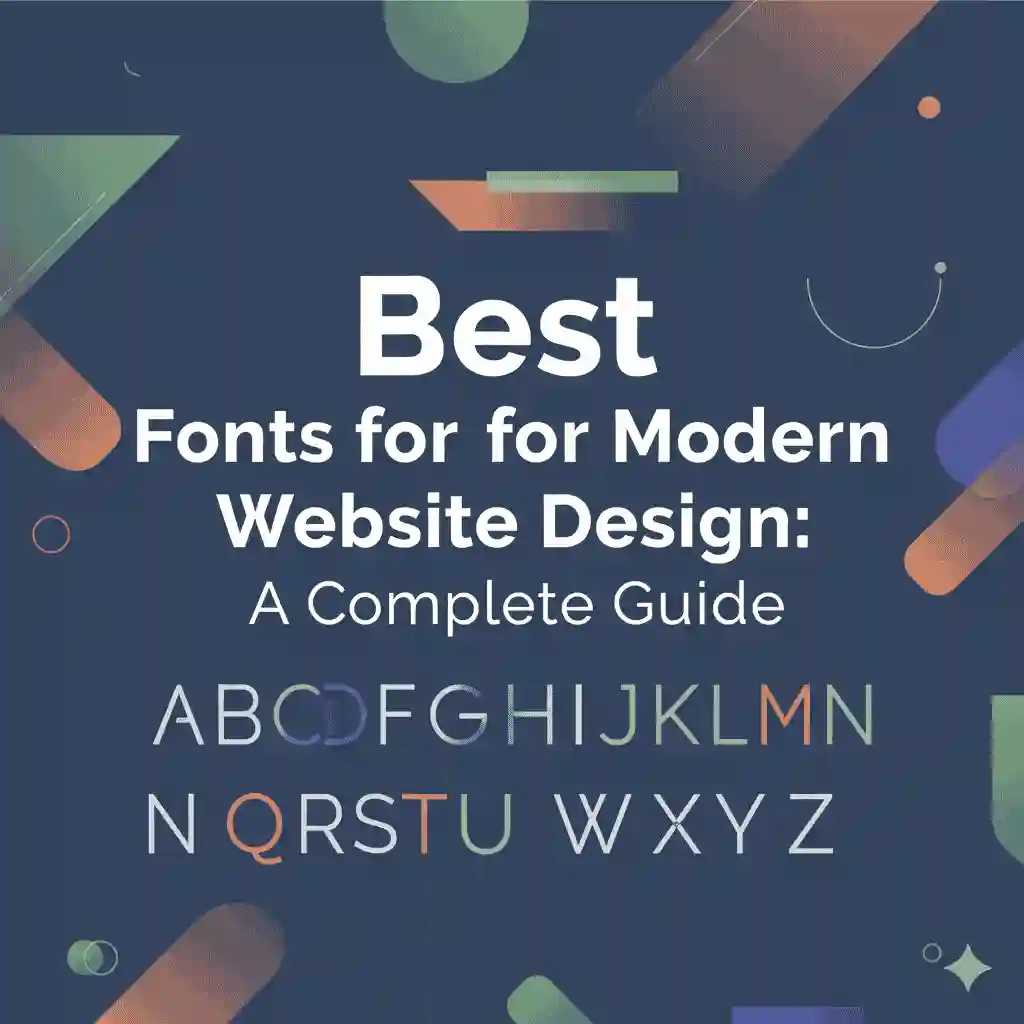
Fonts go beyond aesthetics—they influence how users perceive your website and your brand. According to UX Collective, typography accounts for more than 90% of web design because users spend most of their time reading. The right choice ensures:
- Improved readability
- Stronger brand identity
- Better user experience
- Increased conversion rates
Modern website design emphasizes minimalism, clarity, and aesthetics—all of which depend heavily on typography.
2. Key Characteristics of Modern Fonts
Modern fonts typically share these traits:
- Clean lines: Sans serif fonts are especially popular for modern websites.
- Versatility: Fonts that look great on both desktop and mobile screens.
- Legibility: Easy to read in various sizes.
- Timeless style: Contemporary yet not overly trendy.
Some examples include geometric sans serifs, minimalistic serifs, and humanist typefaces.
3. Best Font Styles for Websites in 2025
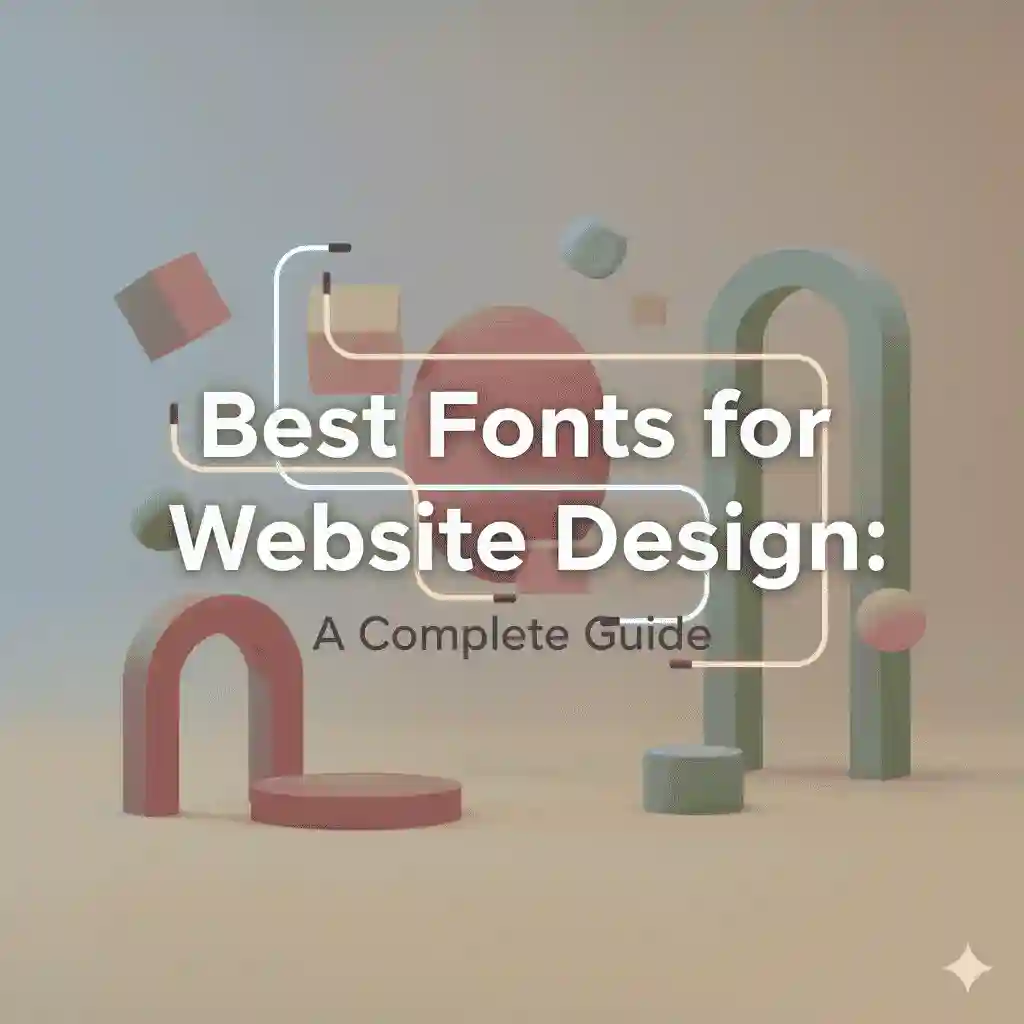
Here are the top categories of fonts you should consider:
a. Sans Serif Fonts
Clean, modern, and highly versatile. Perfect for tech brands and startups.
- Example: Helvetica Neue, Open Sans
b. Serif Fonts
Elegant and timeless, ideal for professional or editorial websites.
- Example: Playfair Display, Georgia
c. Display Fonts
Bold, creative fonts designed for headings and hero sections.
- Example: Bebas Neue, Montserrat Alternates
d. Variable Fonts
Responsive fonts that adjust weight and width, offering flexibility for dynamic layouts.
4. How to Choose the Right Font for Your Website
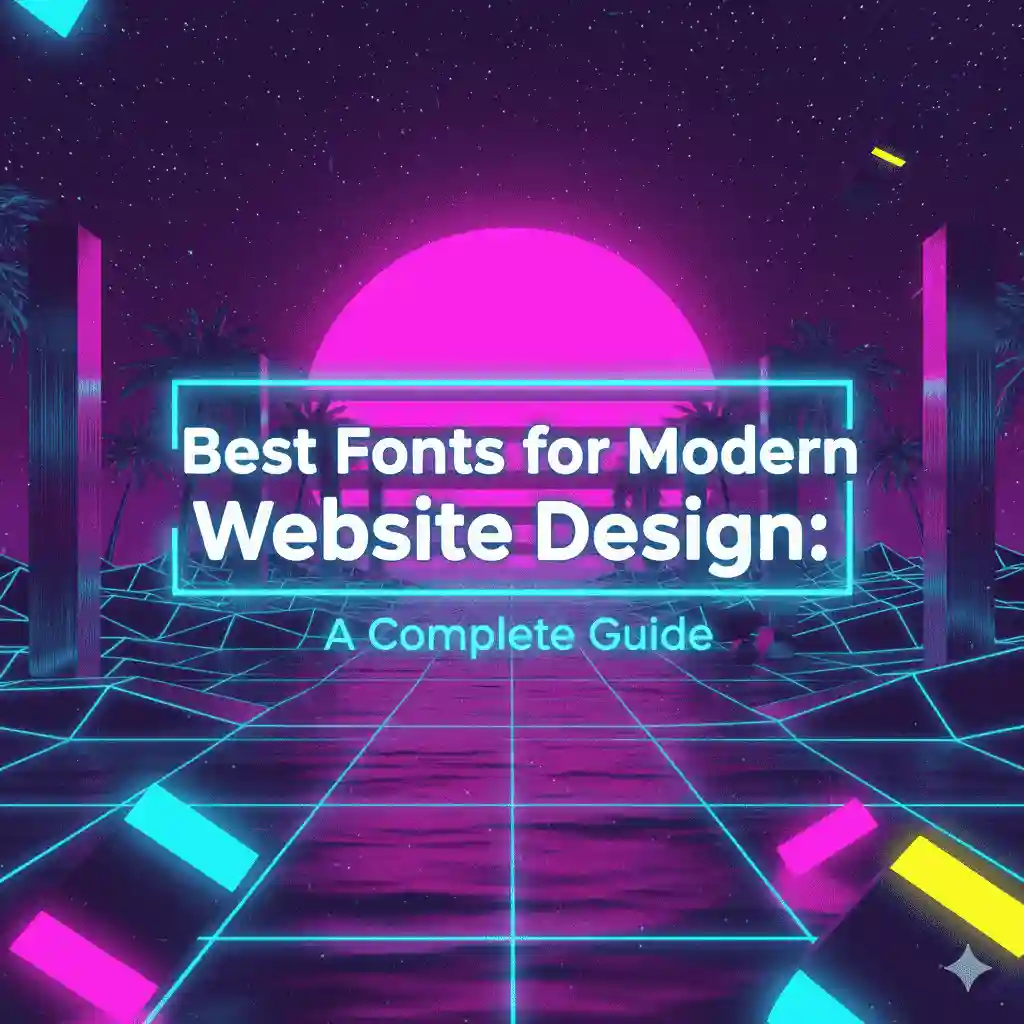
When selecting fonts, keep these tips in mind:
- Match your brand personality: A playful brand may use rounded sans serifs, while a luxury brand may prefer elegant serifs.
- Prioritize readability: Avoid overly decorative fonts for body text.
- Check compatibility: Make sure your font works across different browsers and devices.
- Limit font choices: Stick to 2–3 fonts for a clean, cohesive look.
For example, pairing a modern sans serif for body text with a stylish serif for headlines creates a professional, balanced aesthetic.
5. Top Font Pairings for Modern Web Design
Here are some popular combinations:
- Montserrat + Playfair Display: Modern yet sophisticated.
- Open Sans + Lora: Clean, readable, and elegant.
- Poppins + Roboto: Minimal and highly versatile.
7. Conclusion
Fonts play a central role in modern website design. By choosing the right typography, you can improve readability, strengthen brand identity, and create an engaging user experience. Whether you opt for clean sans serifs, stylish serifs, or bold display fonts, always prioritize clarity and consistency.